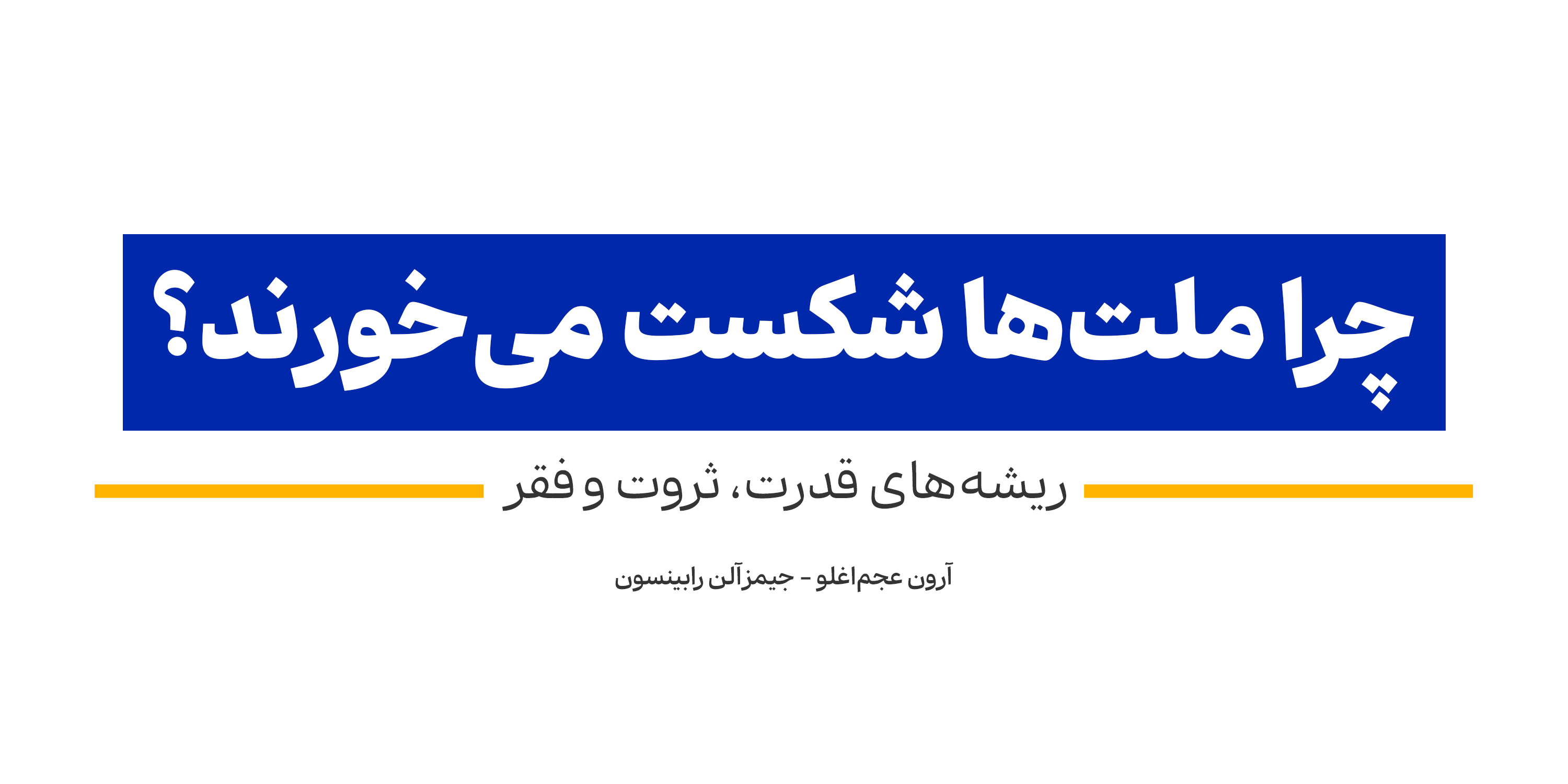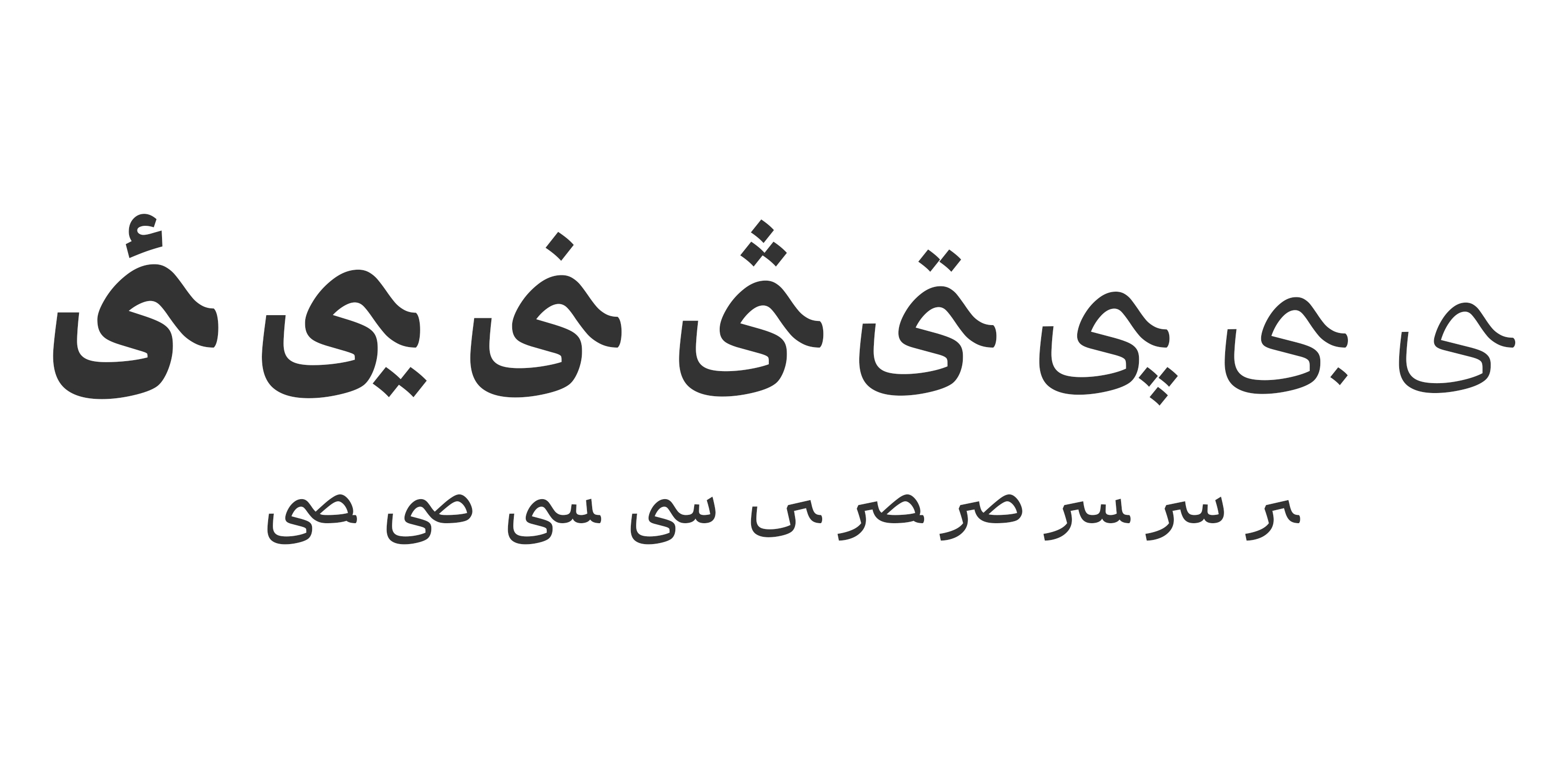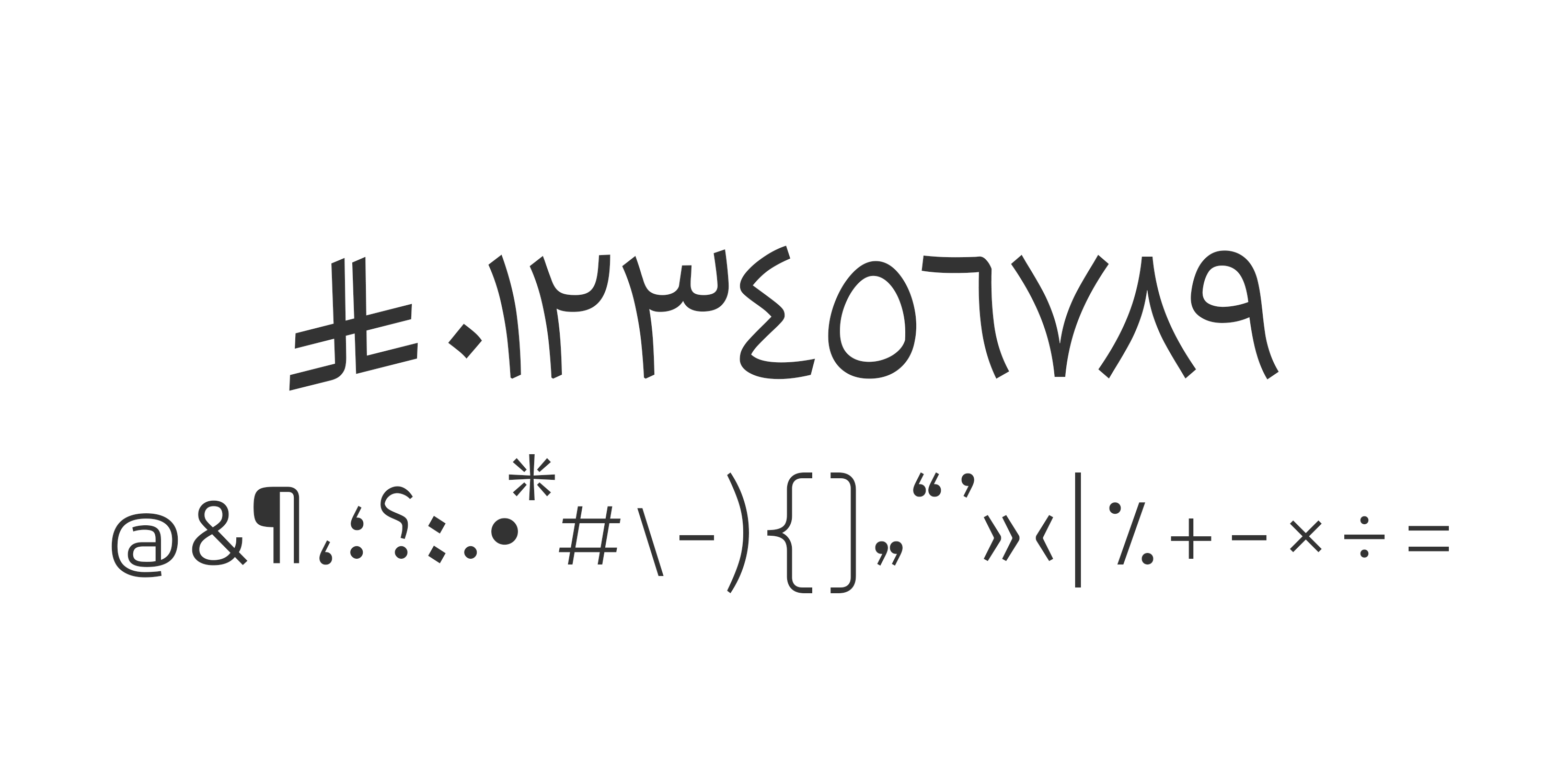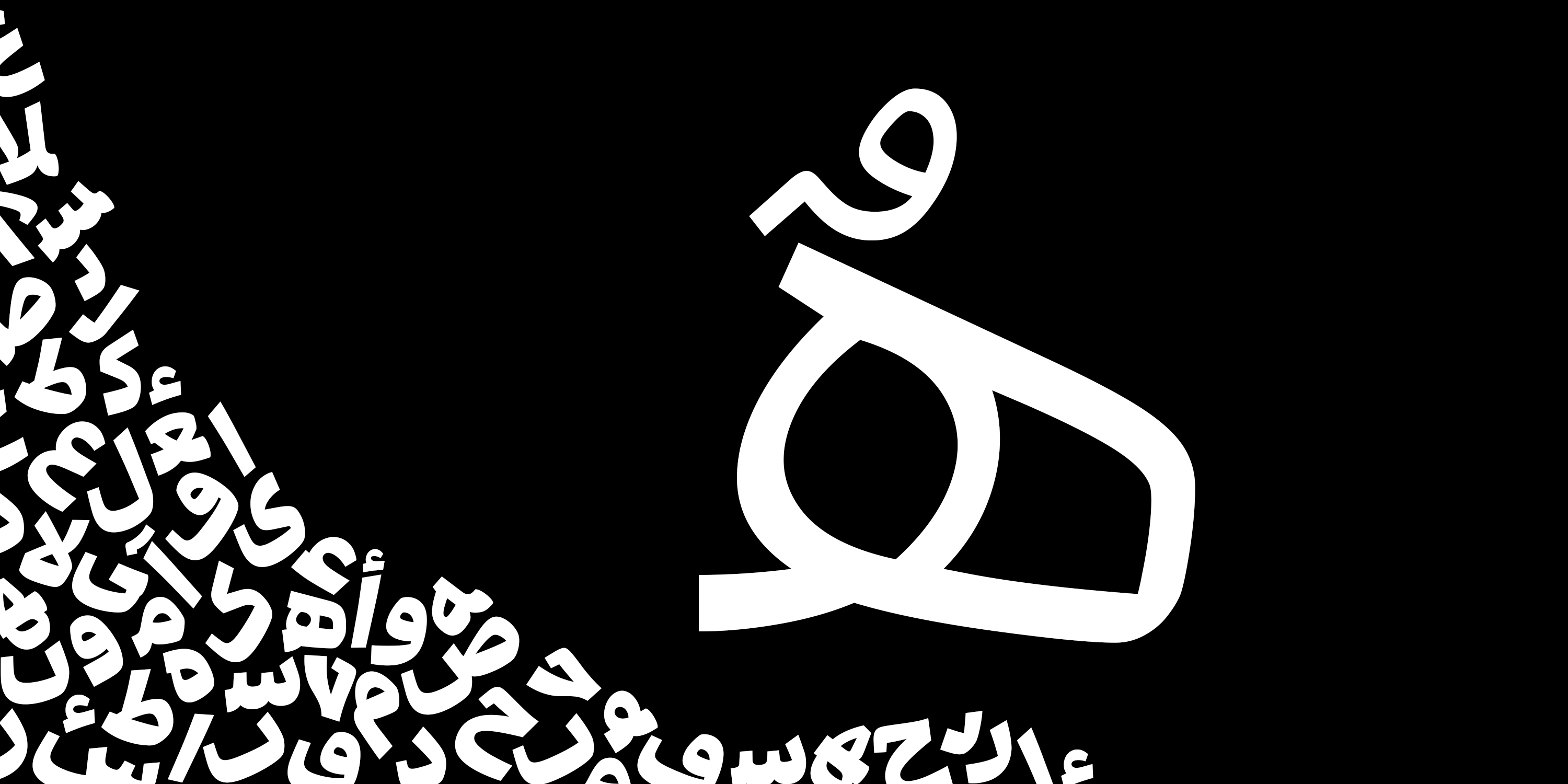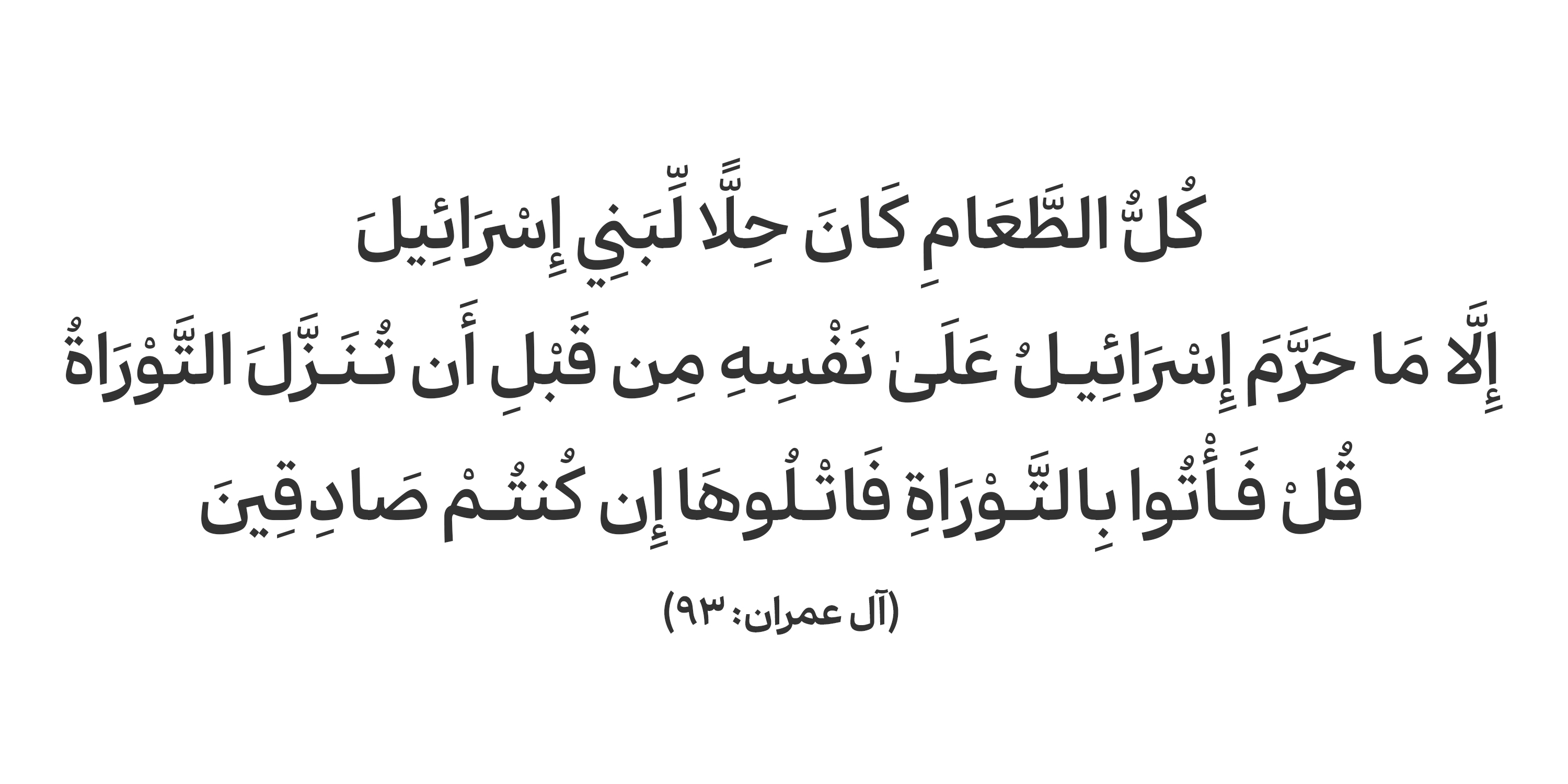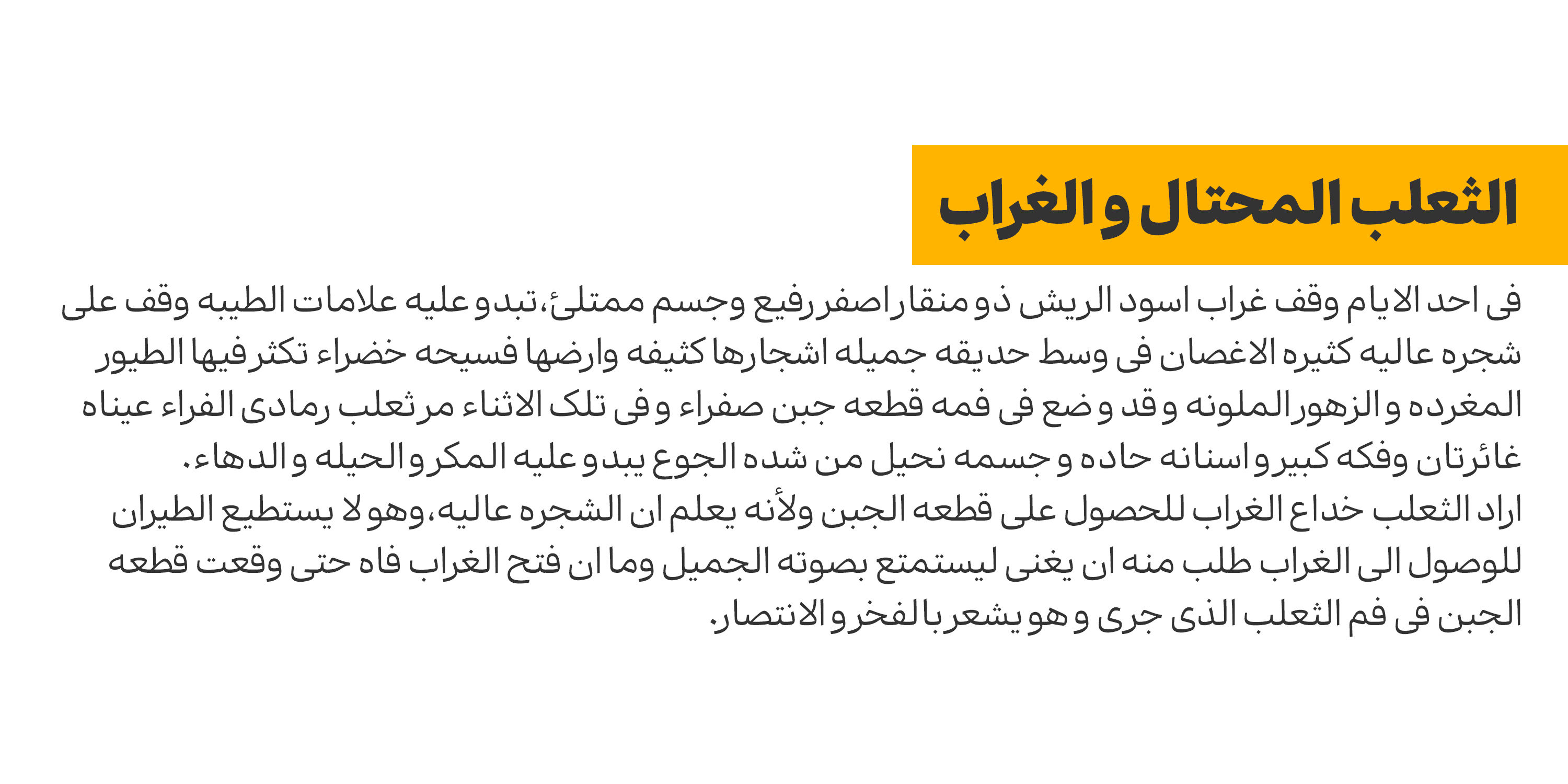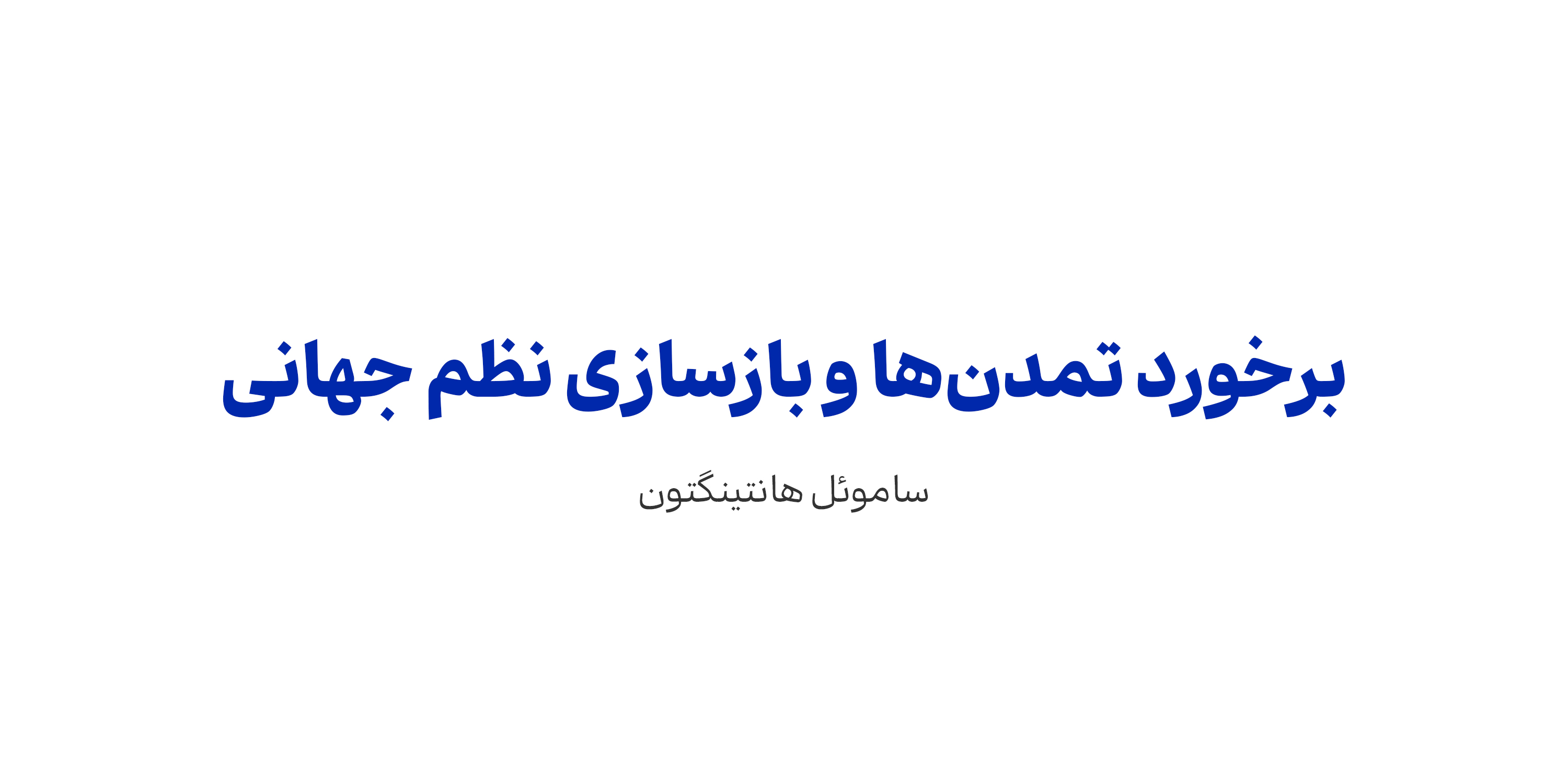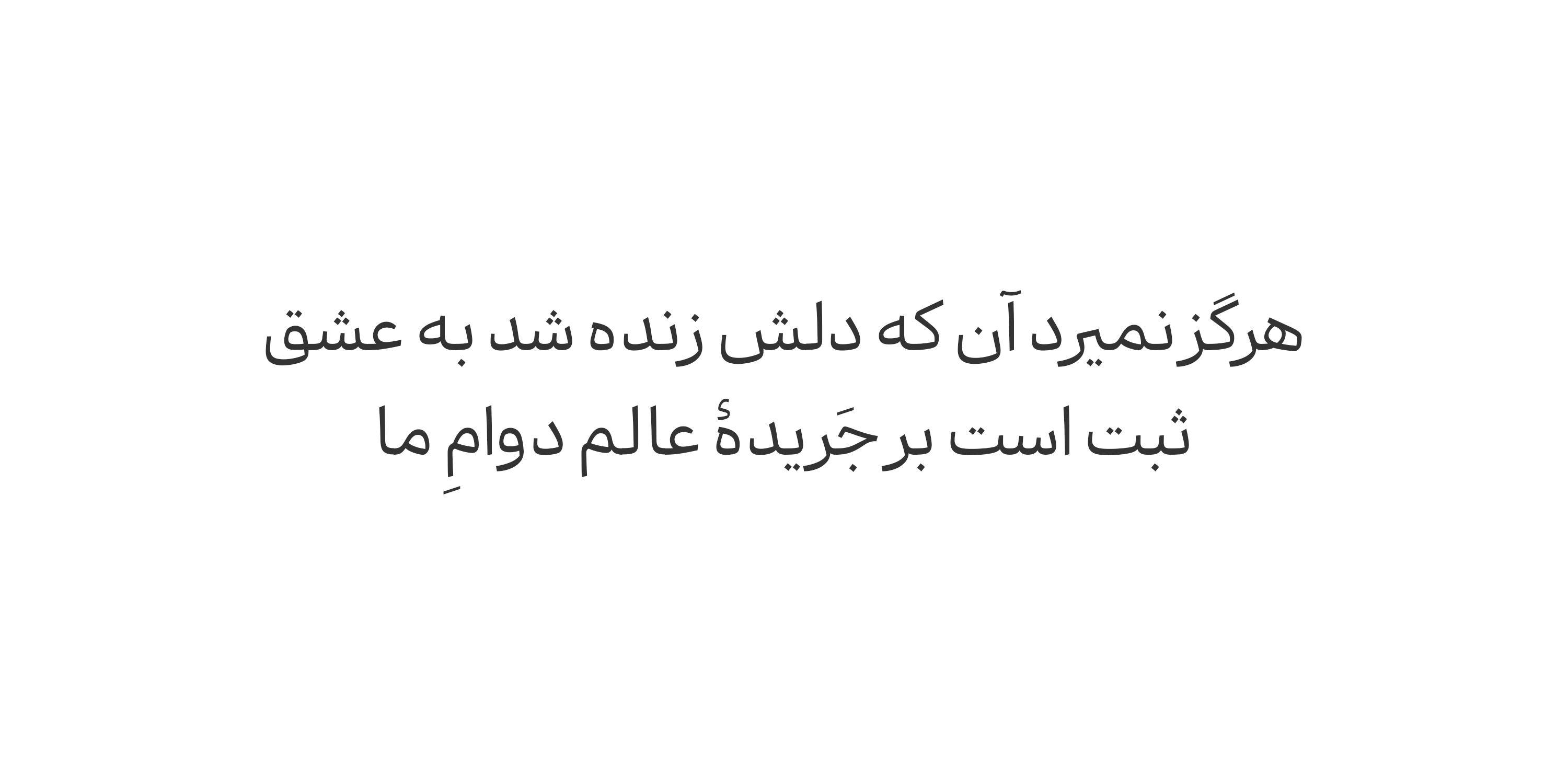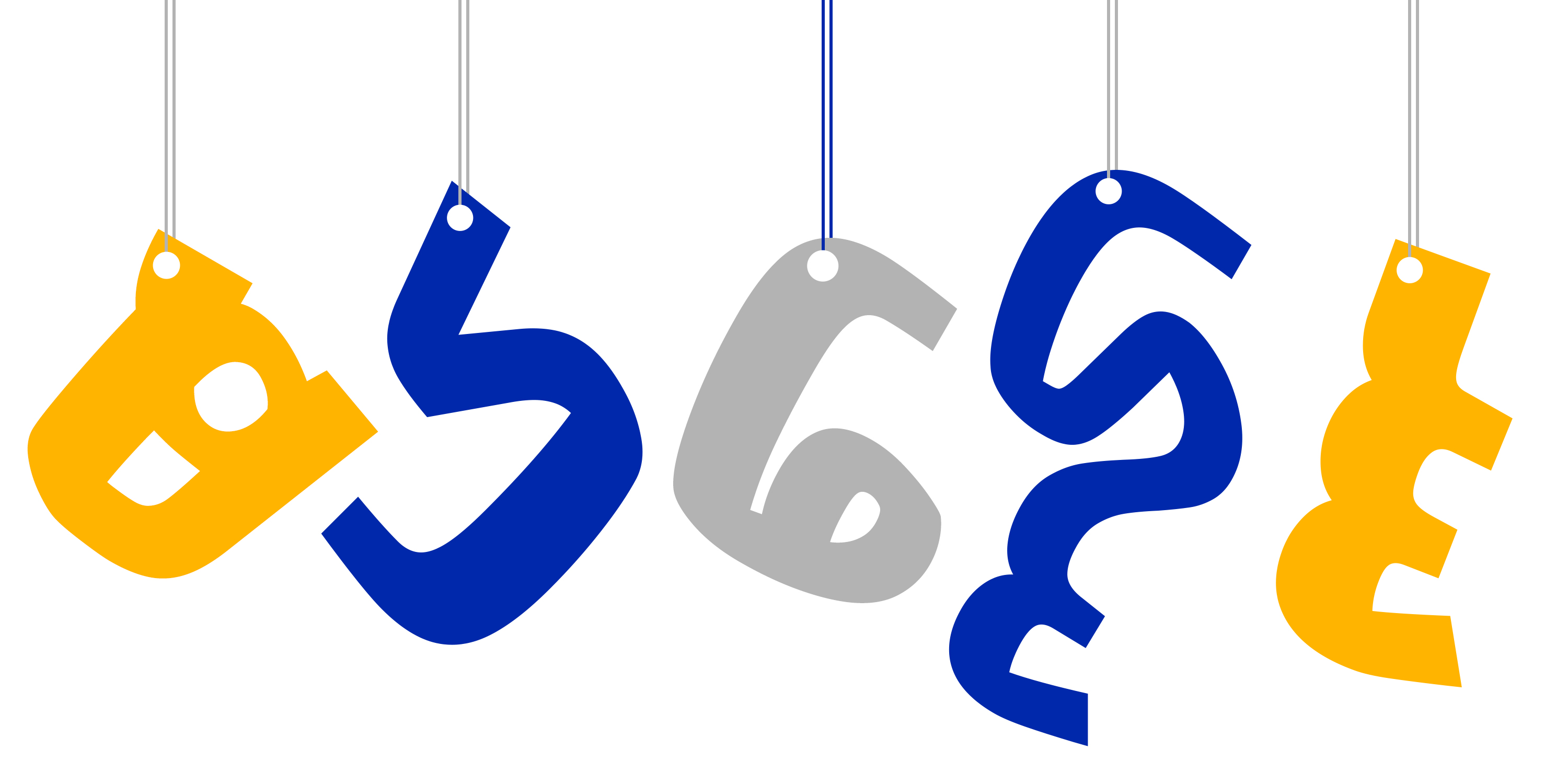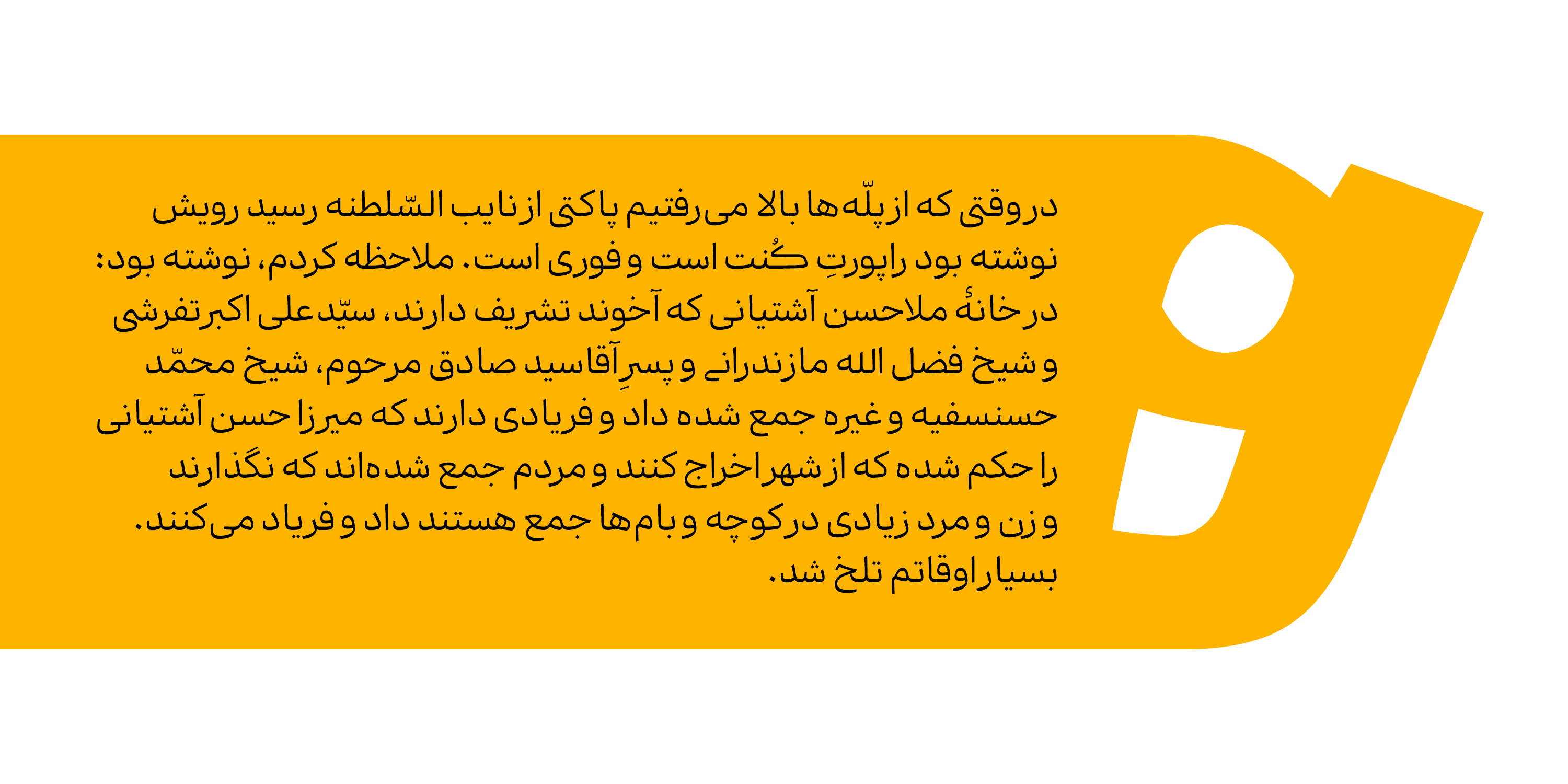
Samarqand
Samarqand is a fresh interpretation of the beauty found in traditional Naskh, without being bound to its classical structure. Designed with an almost monoline approach, Samarqand achieves a clean, contemporary, and highly consistent form—while still preserving the familiar rhythm and spirit of Naskh in its details. The result is a balanced blend of modern simplicity and classic roots.
From the very beginning, Samarqand was designed with exceptional web readability in mind. Its open shapes, controlled curves, precise weight distribution, and well-calculated proportions make it perform flawlessly at small sizes on both desktop and mobile screens. This is a typeface that keeps long reading sessions comfortable, maintaining a smooth and pleasant reading experience.
Samarqand comes in eight weights, giving designers the flexibility to cover a wide range of applications—from bold headlines to body text and interface elements. Across all weights, visual balance, clarity, and rhythmic stability are carefully maintained, ensuring a cohesive and highly refined type family.
Samarqand is an excellent choice for:
• Web and app interfaces requiring high readability
• Long-form text and editorial content
• Modern branding and design systems
• Digital documents and minimal UI environments
Samarqand is simple yet full of character; modern yet rooted; technical yet warm and human. It’s a reliable choice for any project that demands quality, clarity, and authenticity all at once.
Reza Bohlul